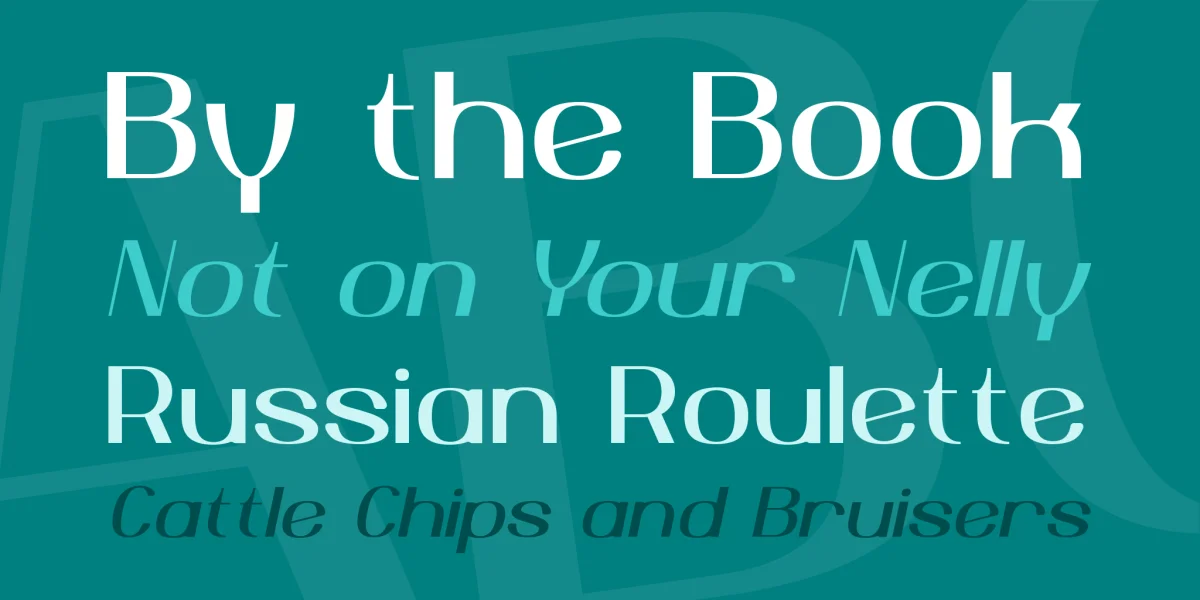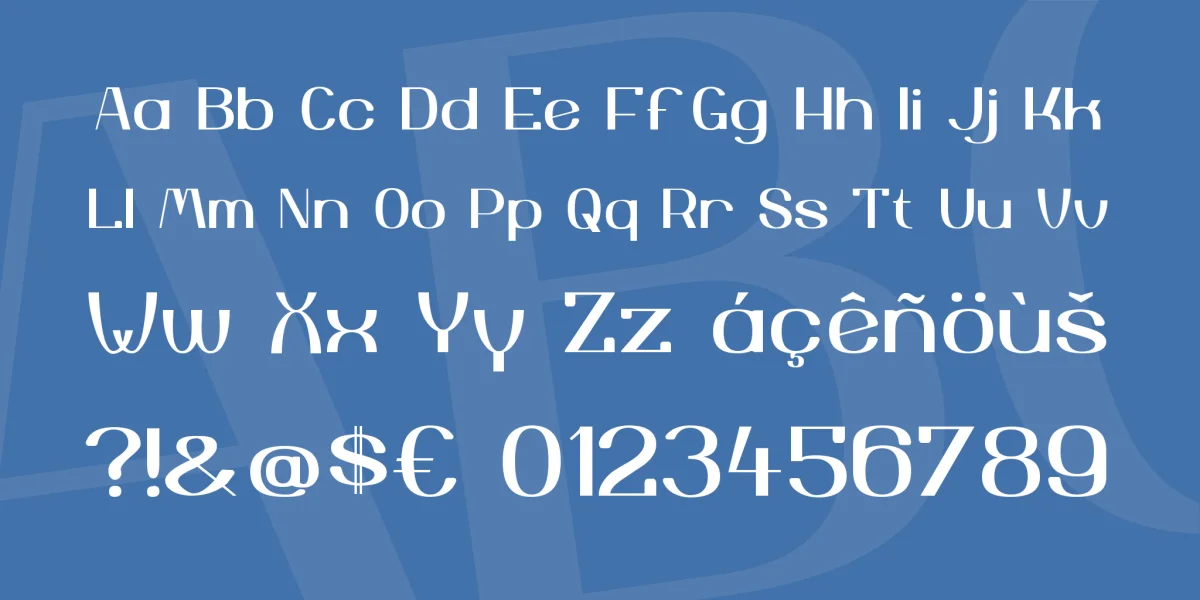
Yiggivoo is probably my most extensive writing. With over 700 glyphs it covers not only the Greek and Cyrillic alphabet almost all Latin letters with all extensions, such as the African or Vietnamese alphabet. Thus it is not unusual for a imaginary world for body text font, universal than any other freeware font!